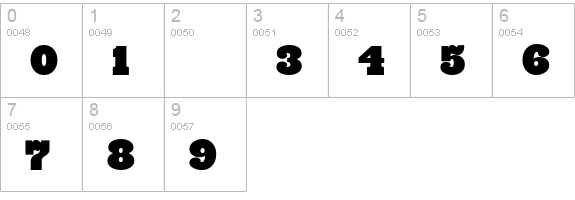
Rio Grande Wbw font is a stylish and versatile typeface that exudes elegance and sophistication. With its unique blend of classic and modern elements, this font is perfect for a wide range of design projects, from branding to editorial design. Its clean lines and sharp edges give it a sleek and professional look that is sure to make your text stand out. The best part? Rio Grande Wbw font is available for free download at FontsMarket.com. Whether you're a designer looking to add a touch of sophistication to your work or a content creator in need of a stylish font for your website or social media graphics, Rio Grande Wbw is the perfect choice. Download it today and elevate your designs with this stunning typeface.